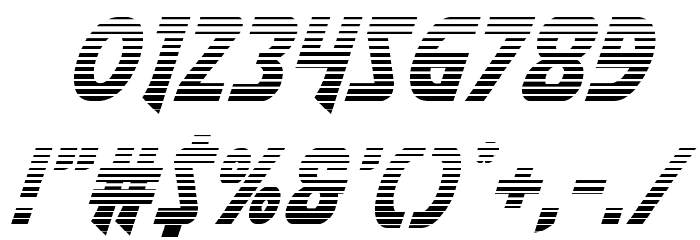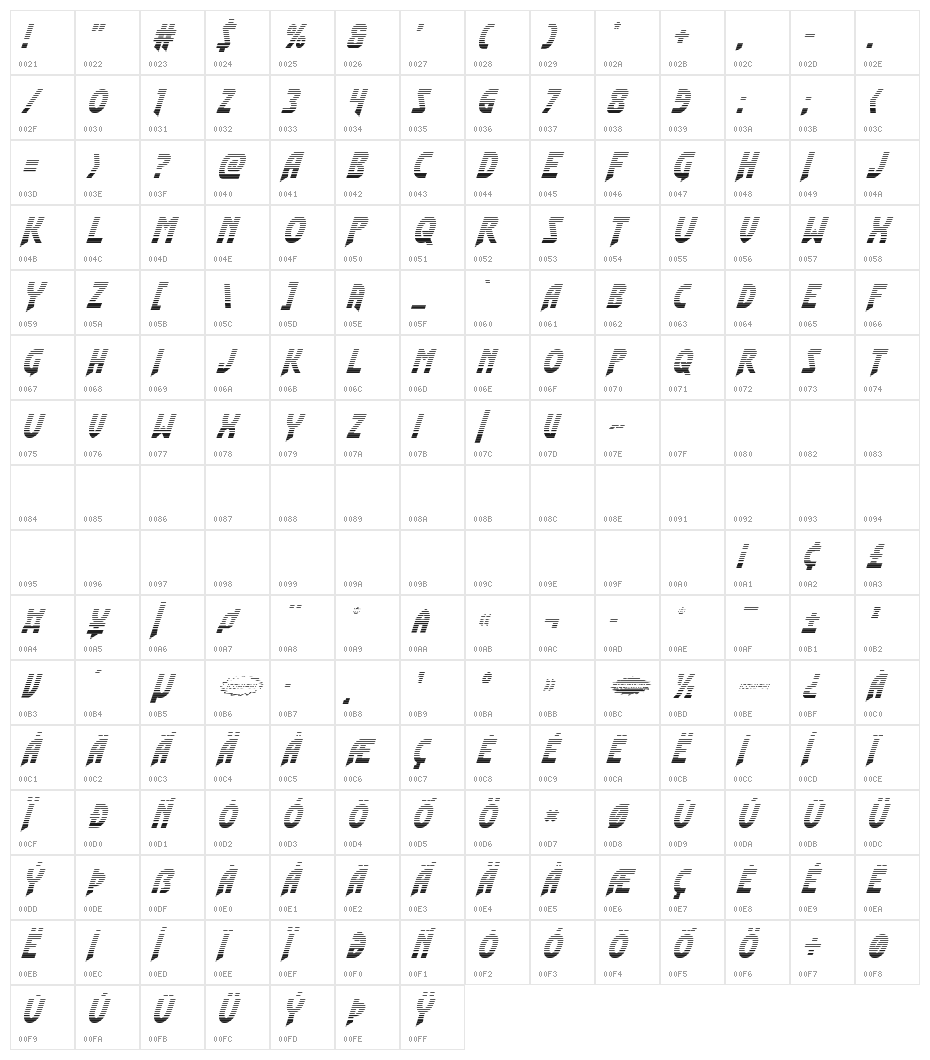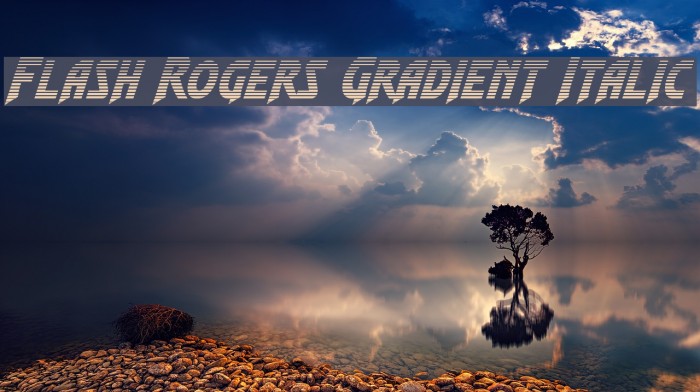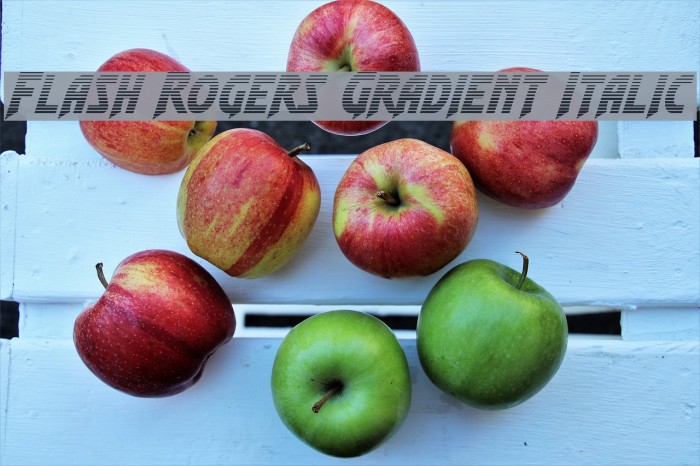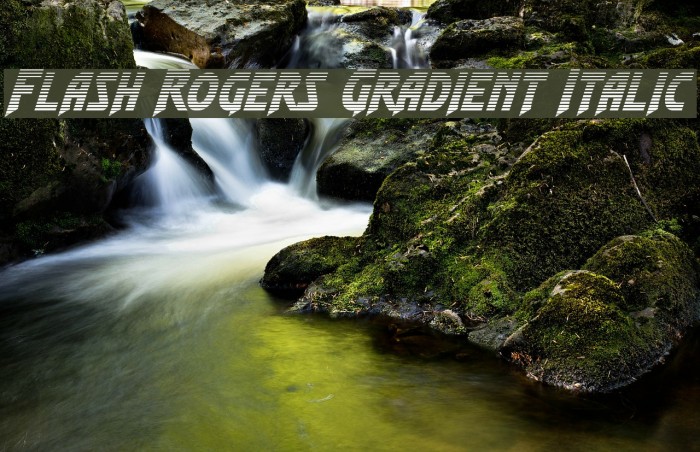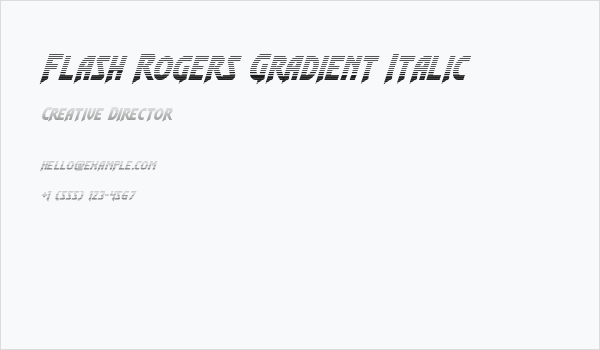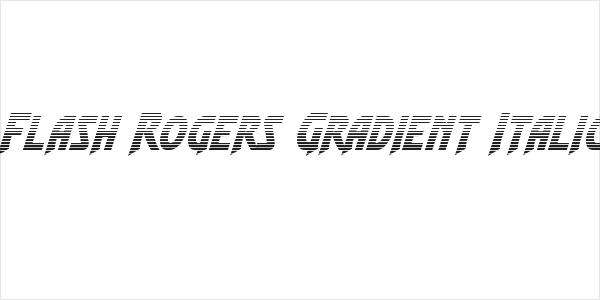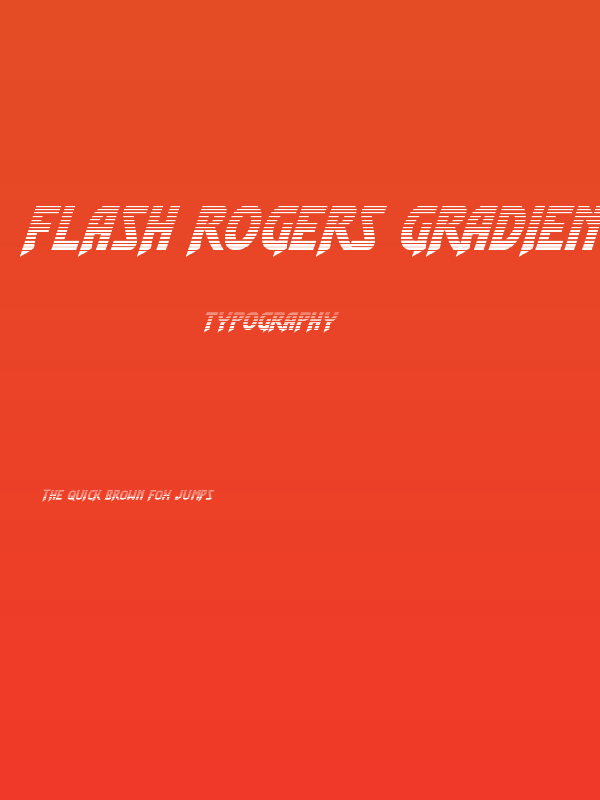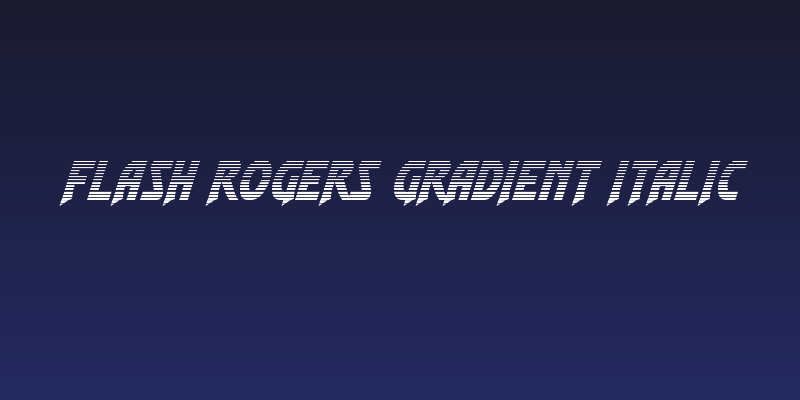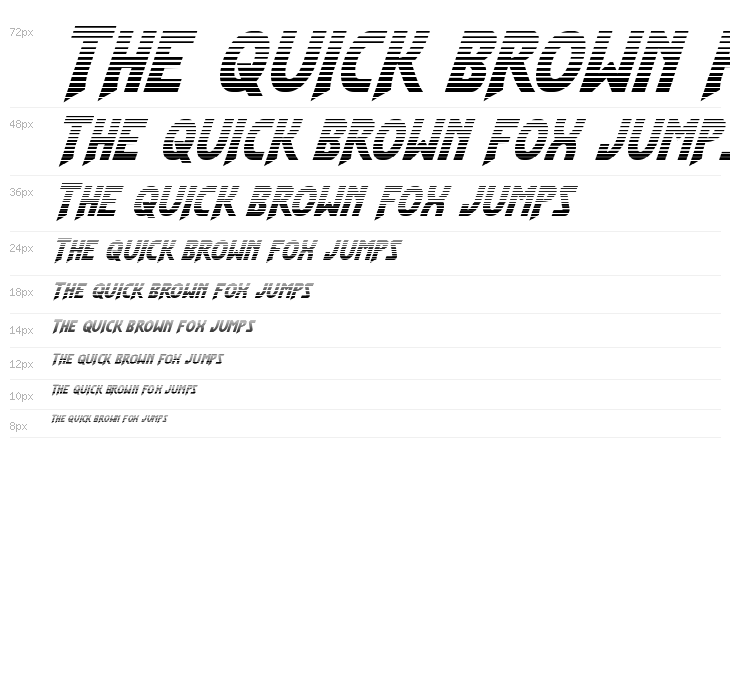
Flash Rogers Gradient Italic Font
This font features a dynamic and futuristic design with a distinct italic slant. The characters are composed of horizontal stripes, creating a gradient effect that adds depth and movement. The bold, angular shapes convey a sense of speed and modernity, making it ideal for projects that require a strong visual impact. The uppercase and lowercase letters, along with numbers and special characters, maintain a consistent style that enhances readability while maintaining a unique aesthetic.
| Proposed Projects | Ideal for sports branding, futuristic designs, video game titles, and dynamic advertising campaigns. |